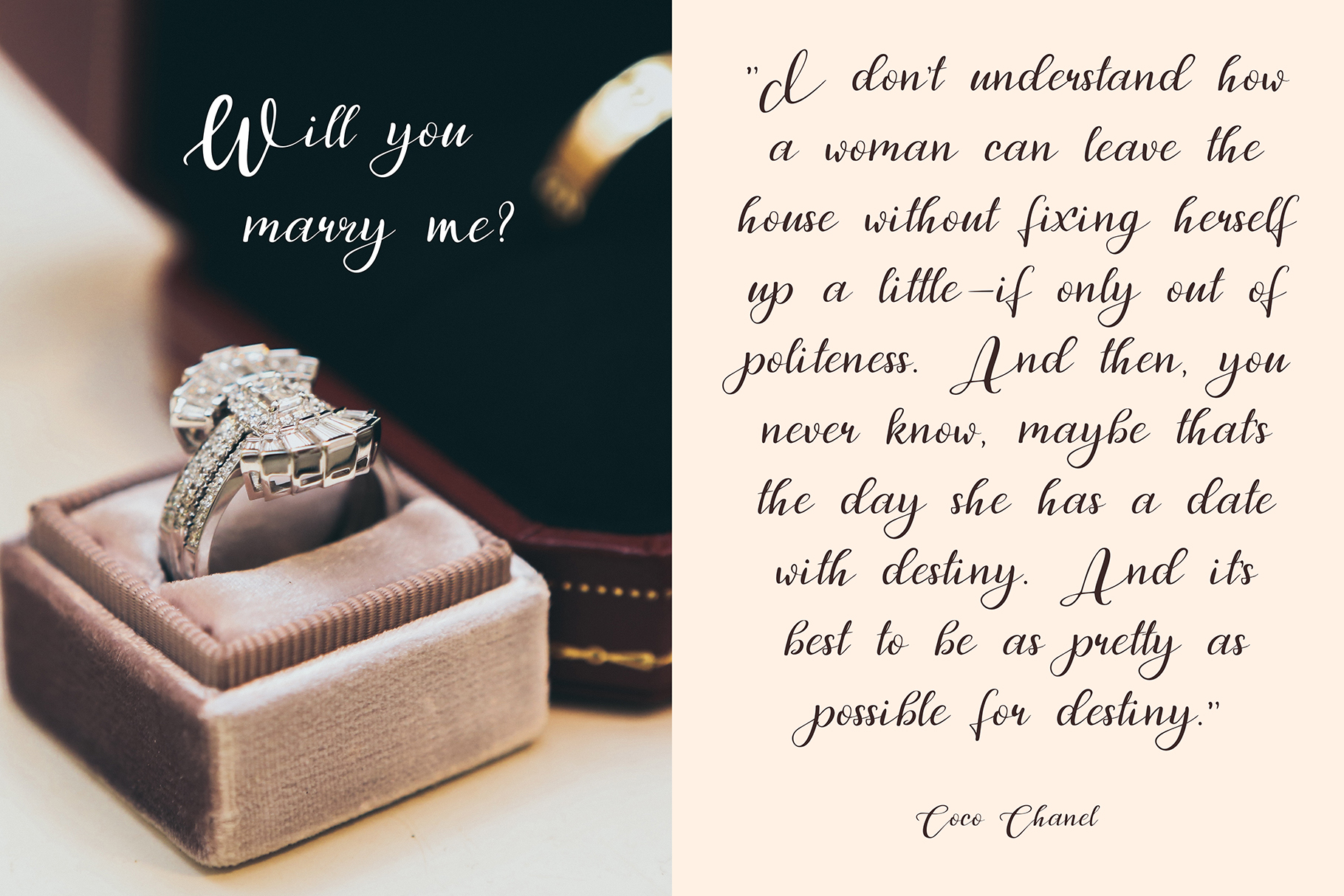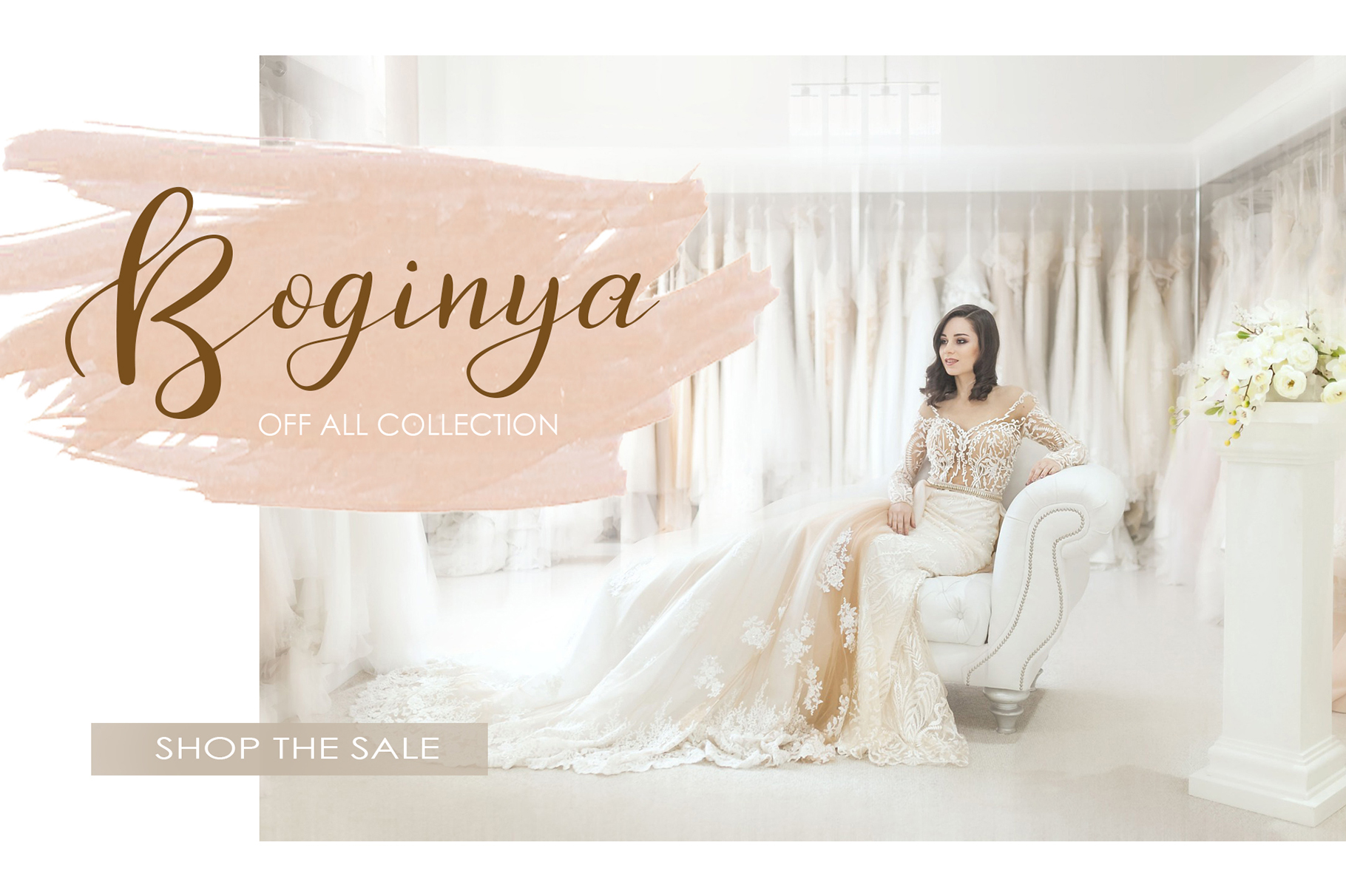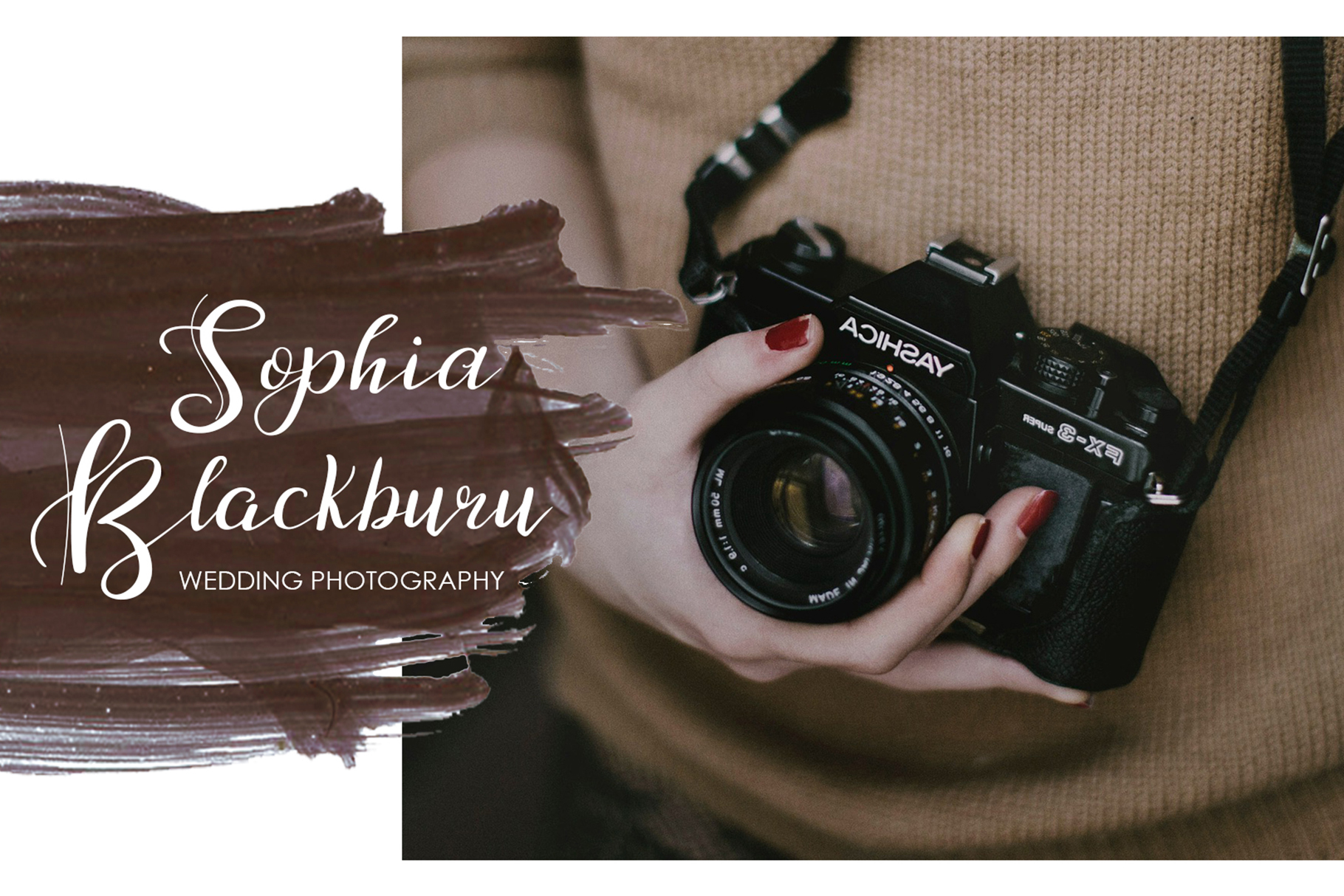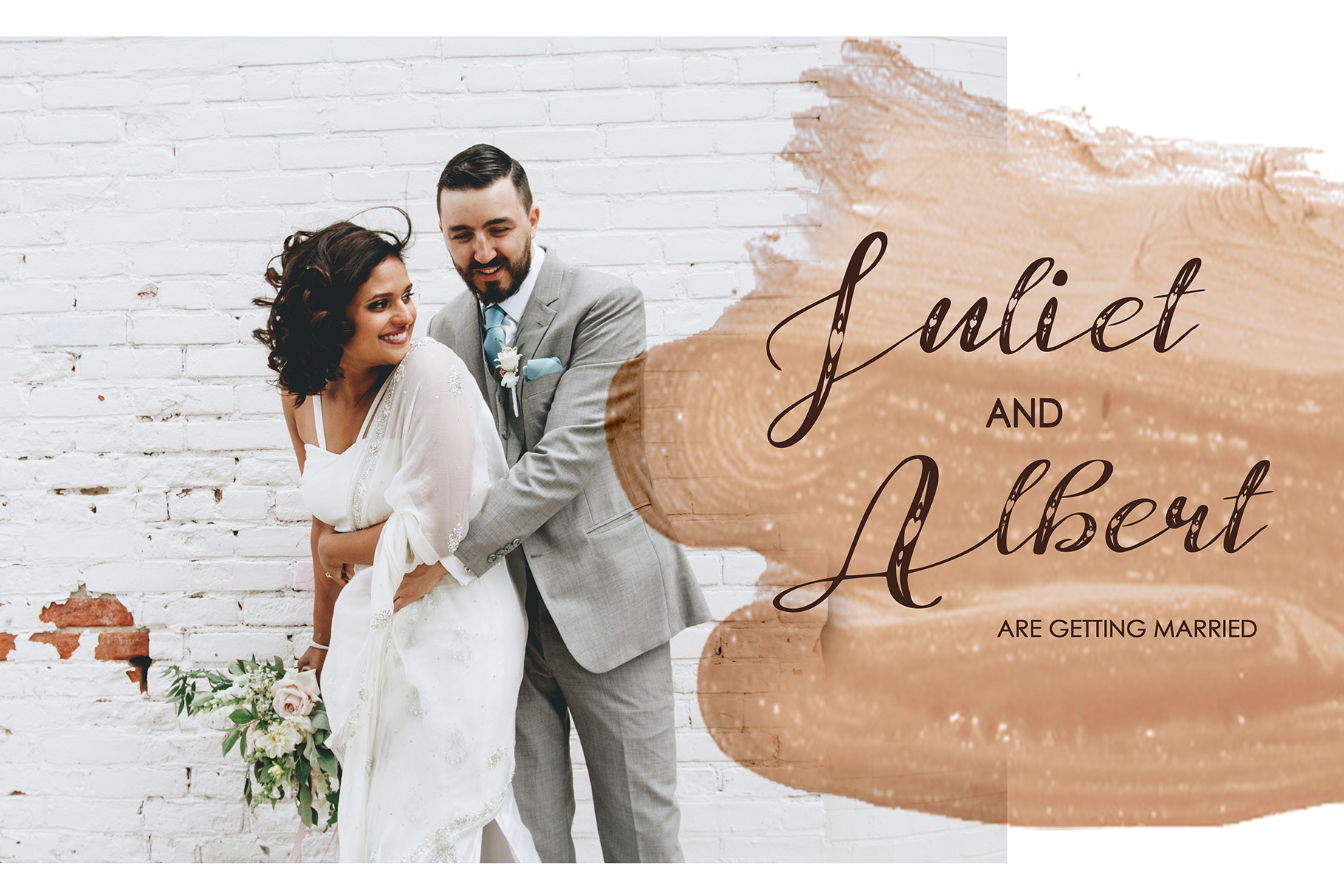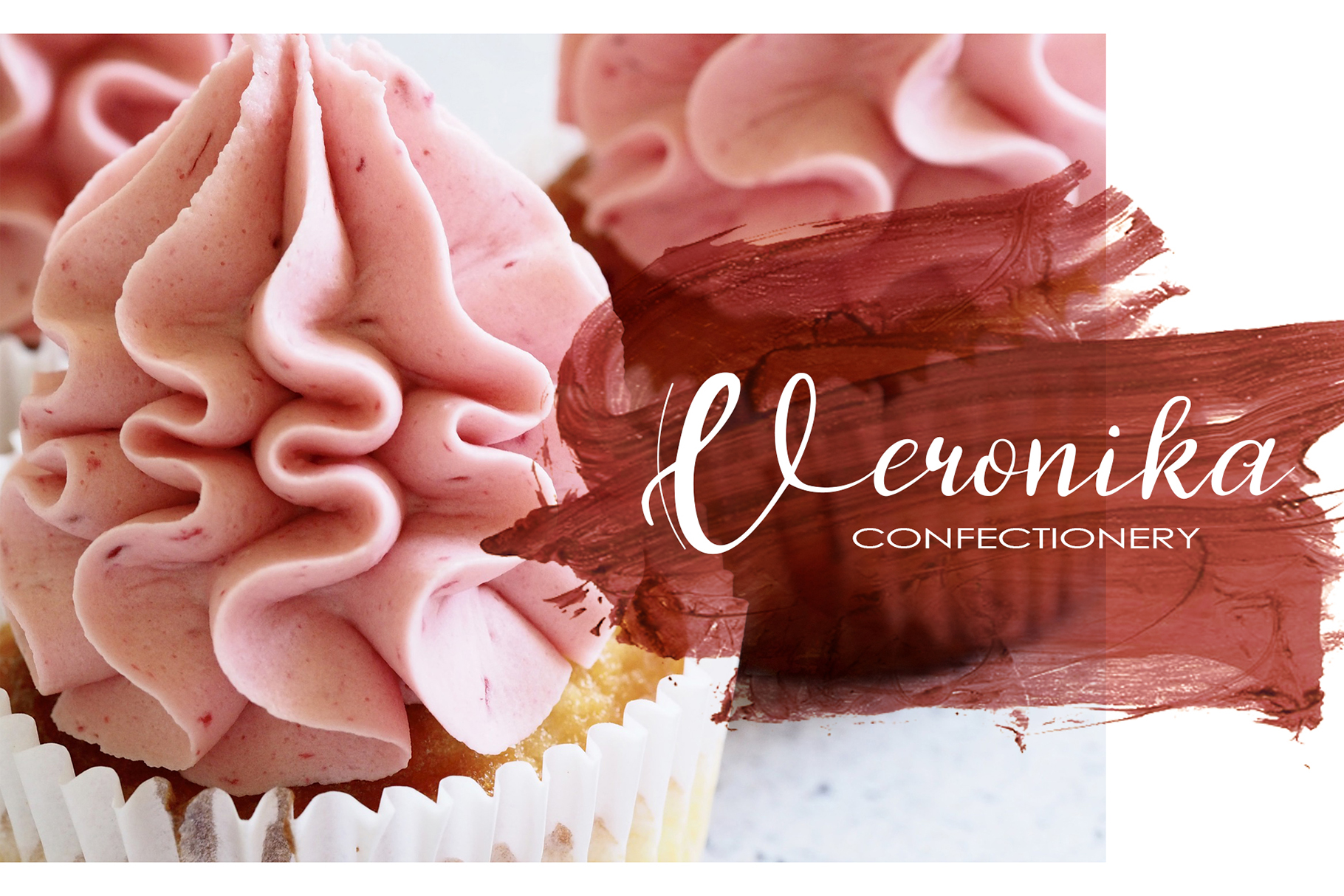
About First Dance Font
First Dance is a wonderfully evocative and romantic font, one that can be used with ease to add some rural charm to your designs. This script has a variable baseline and looks great when combined with soft and ethereal designs.